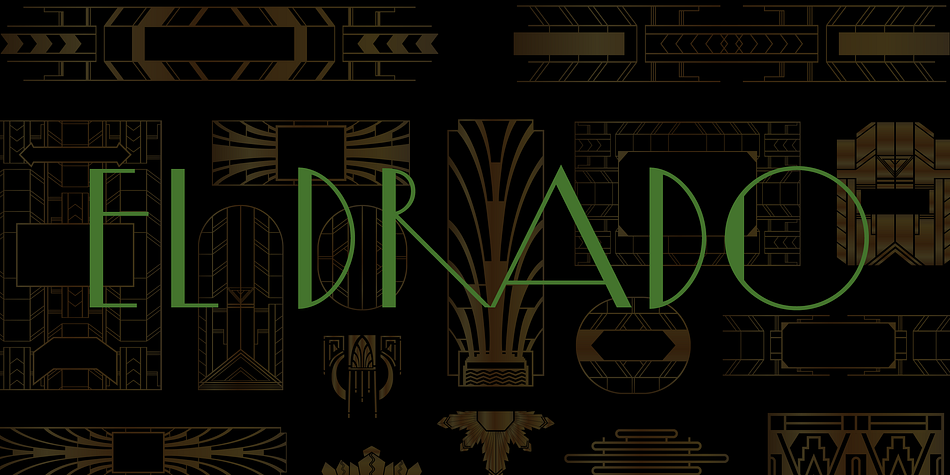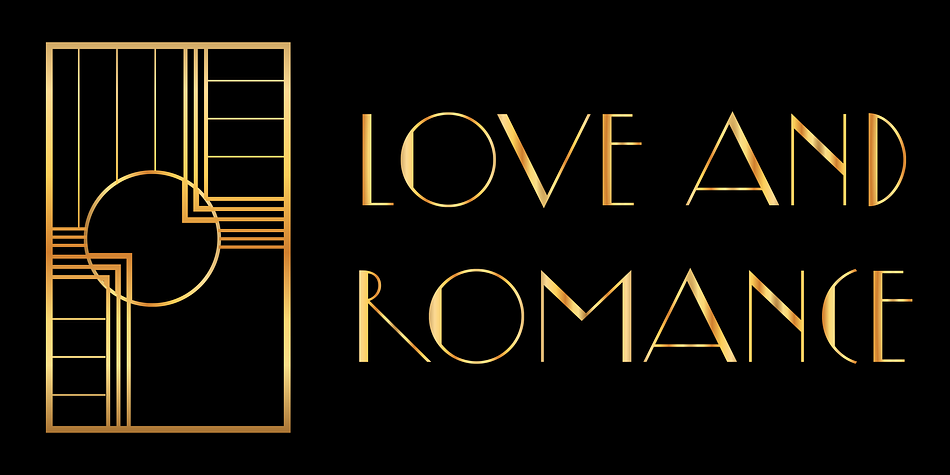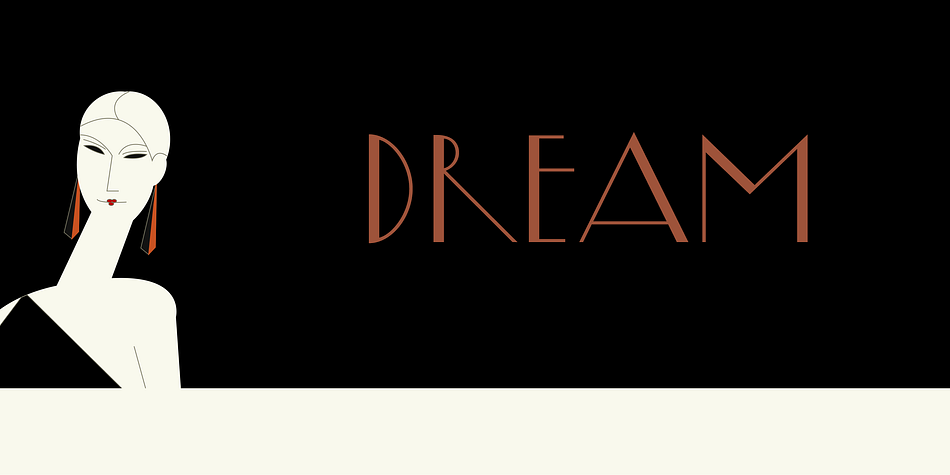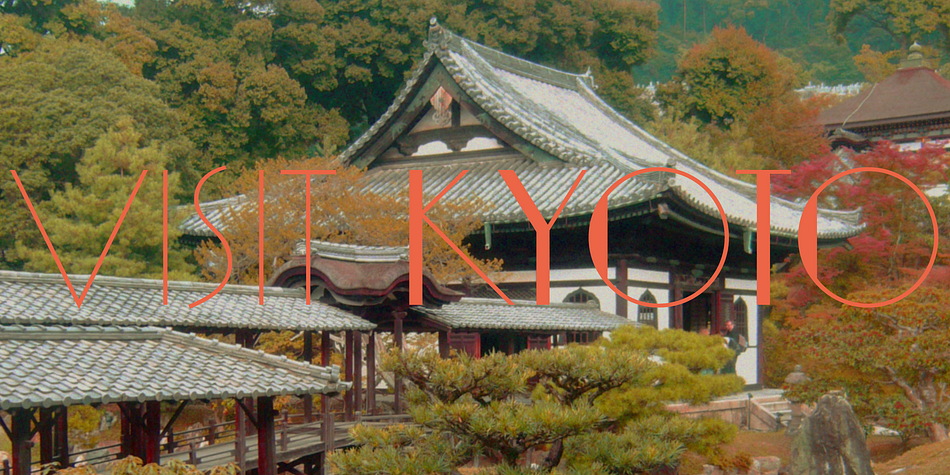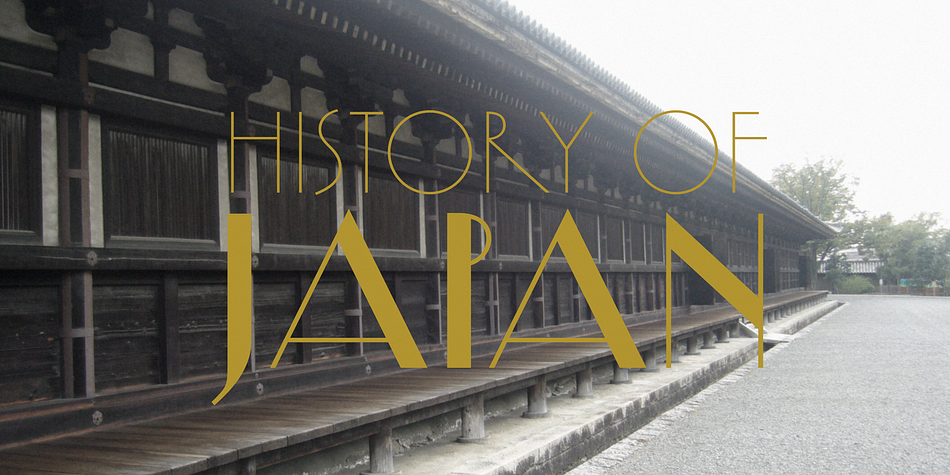
Yasashii is a art deco font family. This typeface has four styles and was published by Dharma Type.
Yasashii is an art deco font based on Japanese designs for cosmetic packaging and posters used from the end of the 19th century to the early 20th. La La Land Font!